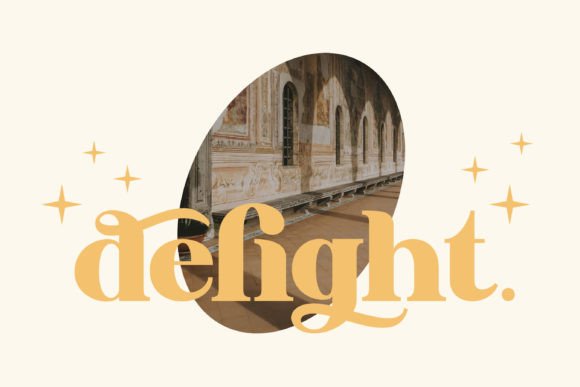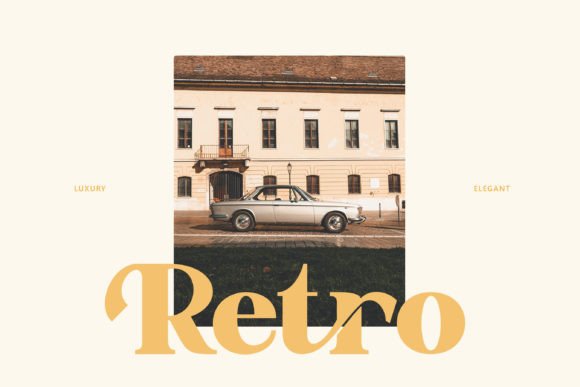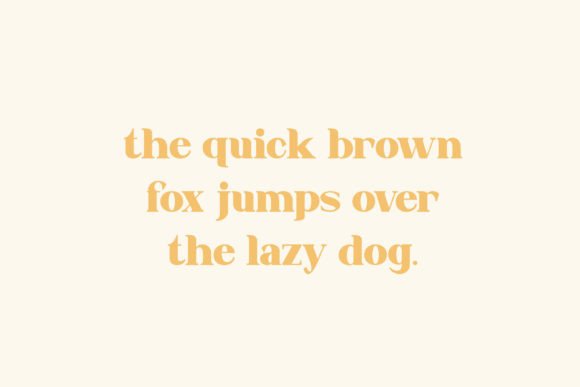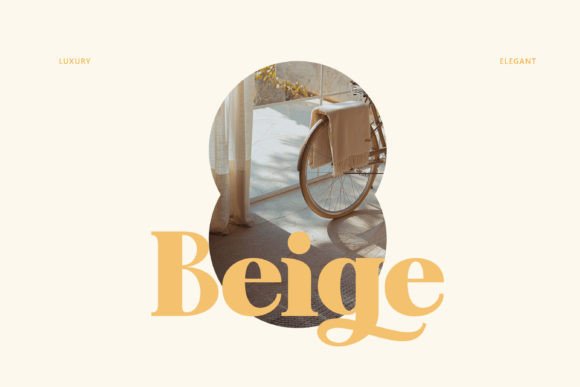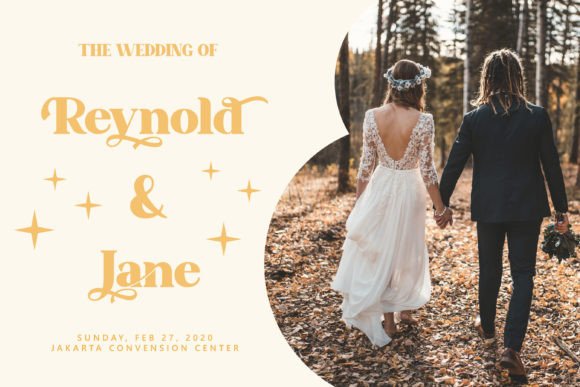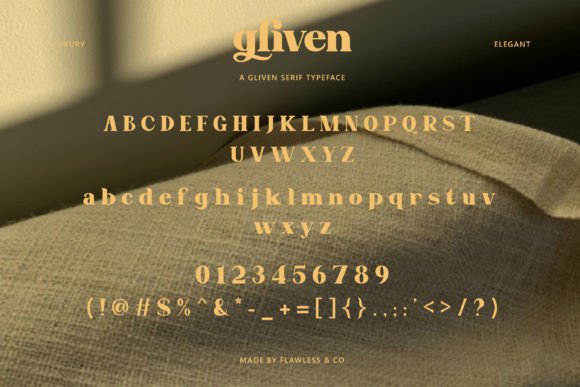
Introducing Gliven Font: The Modern and Bold Serif for Your Creative Projects
Are you tired of using the same old fonts for your creative projects? Look no further! Gliven Font is here to revolutionize your design game with its modern and bold serif style. This versatile font is perfect for creating stunning wedding invitations, beautiful stationery art, eye-catching social media posts, and so much more.
What Makes Gliven Font So Special?
Gliven Font is a game-changer for designers and crafters alike. Its unique blend of modernity and classic serif elements makes it stand out from the crowd. The font’s bold and elegant style is perfect for making a statement, while its versatility ensures it can be used in a wide range of creative projects.
Perfect for Wedding Invitations and Stationery
Gliven Font is a dream come true for wedding planners and stationery designers. Its elegant and sophisticated style makes it perfect for creating beautiful wedding invitations, save-the-date cards, and other stationery essentials. The font’s bold serif elements add a touch of luxury and glamour, making it ideal for high-end weddings and special occasions.
But Gliven Font is not just limited to wedding stationery. Its versatility makes it perfect for creating a wide range of stationery art, from business cards and letterheads to journals and planners.
Eye-Catching Social Media Posts and Graphics
In today’s digital age, social media graphics are an essential part of any marketing strategy. Gliven Font is perfect for creating eye-catching social media posts, banners, and graphics that will grab the attention of your audience. The font’s bold and modern style ensures your message will stand out in a crowded feed, making it perfect for businesses, bloggers, and influencers.
The possibilities with Gliven Font are endless! Its versatility makes it perfect for a wide range of creative projects, including:
- Journals and planners
- Signs and posters
- Packaging and branding
Why Choose Gliven Font?
So why choose Gliven Font for your creative projects? Here are just a few reasons:
- Unique and modern style: Gliven Font’s bold serif style is unlike anything you’ve seen before.
- Versatility: The font can be used in a wide range of creative projects, from wedding stationery to social media graphics.
- Elegant and sophisticated: Gliven Font adds a touch of luxury and glamour to any project.
- Easy to read: Despite its bold style, Gliven Font is easy to read, making it perfect for body text and headlines.
Get Ready to Fall in Love with Gliven Font!
Gliven Font is a game-changer for designers and crafters alike. Its modern and bold serif style, versatility, and elegance make it the perfect choice for a wide range of creative projects. Whether you’re a professional designer or a DIY crafter, Gliven Font is sure to become your new go-to font.